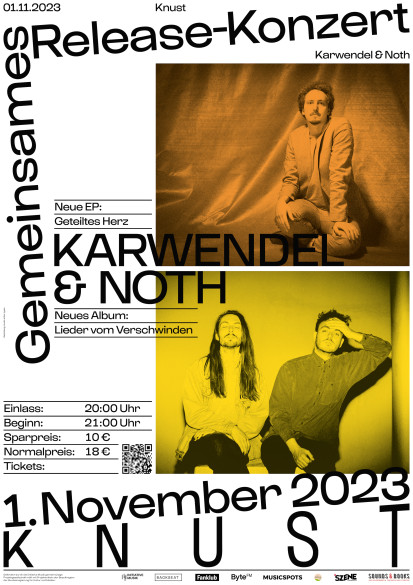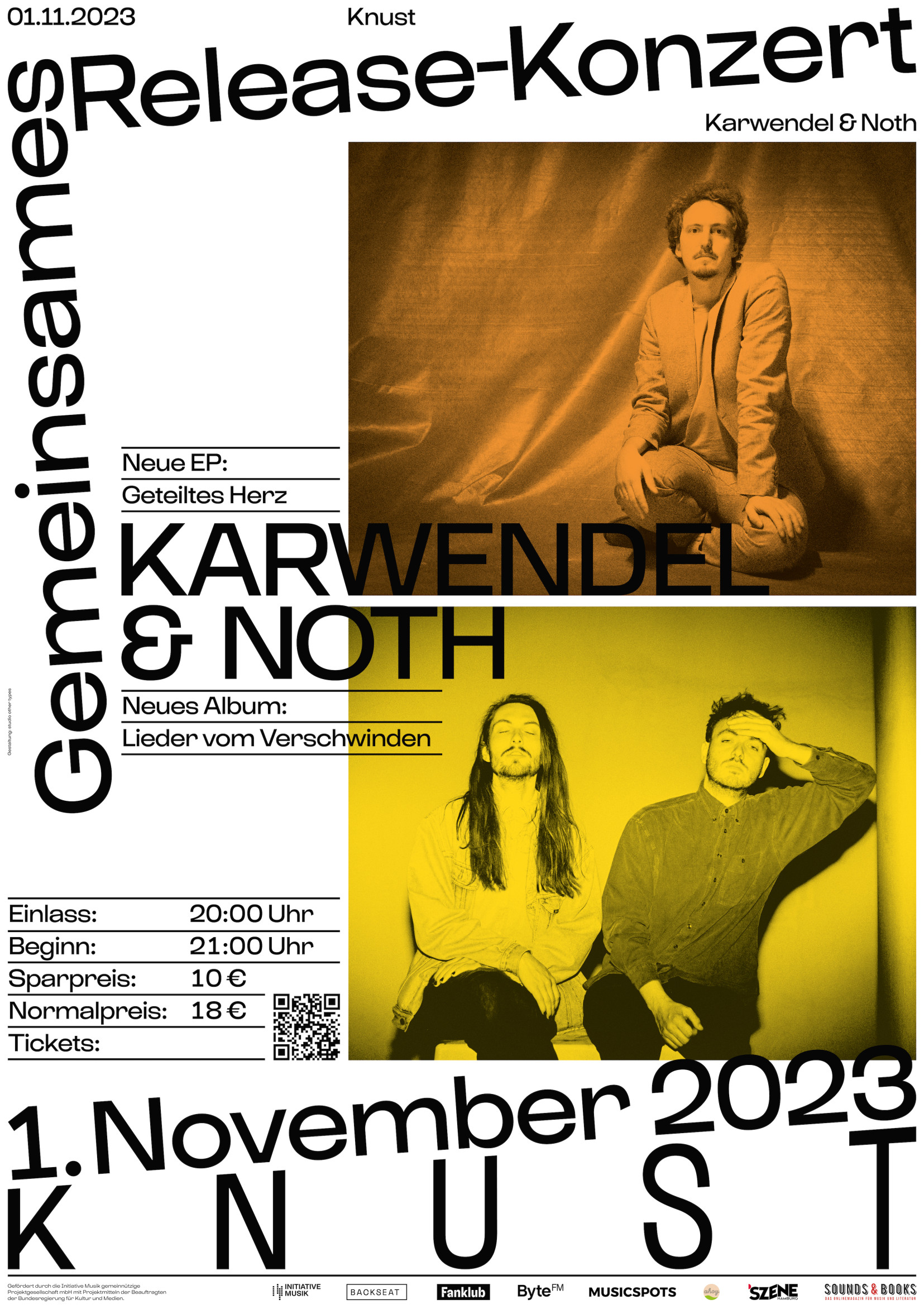
Release concert: Karwendel & Noth
Poster and flyer design for the joint release concert of the two bands Karwendel and Noth in November 2023. The two bands come to celebrate their new records with a large line-up, Noth even with 10 musicians.
The title of the concert is playfully arranged and creates the feeling of joy and upswing through the diagonal rising to the right. The information about the event, on the other hand, is clearly structured so that it can be grasped quickly.
Typeface: Boogie Shool Sans von Or Type